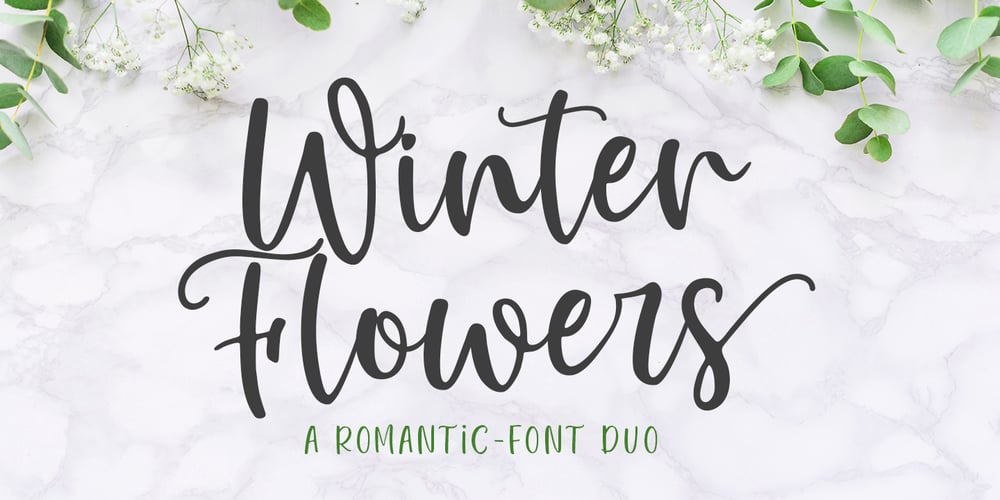
Winter Flowers Font Family was designed by Mulkan Nazir and published by Great Studio. Winter Flowers contains 2 styles and family package options. Winter Flowers, a font duo, is a unique and modern hand script that provides a large selection of alternative characters to choose from as well as ligatures that look natural and add to the authenticity of the letters. Winter Flowers is a modern handwritten font, loaded with awesome OpenType features, and a set of alternative characters for uppercase and lowercase letters. Make all the extra decorative and unique choices you wish with the included swashes, endings, and alternative letters. Designed to work harmoniously, Winter Flowers is also equipped with a sans font, to perfect your design. This font is perfect for branding, logos, web and editorial design, branding, prints, invitations, handicrafts, quotes, and more. Winter Flowers features OpenType stylistic alternates, ligatures and International support for most Western Languages is included. To enable the OpenType Stylistic alternates, you need a program that supports OpenType features such as Adobe Illustrator CS, Adobe Indesign & CorelDraw X6-X7, Microsoft Word 2010 or later versions. Winter Flowers is coded with PUA Unicode, which allows full access to all the extra characters without having special designing software. Mac users can use Font Book , and Windows users can use Character Map to view and copy any of the extra characters to paste into your favourite text editor/app. Thank you, Great Studio